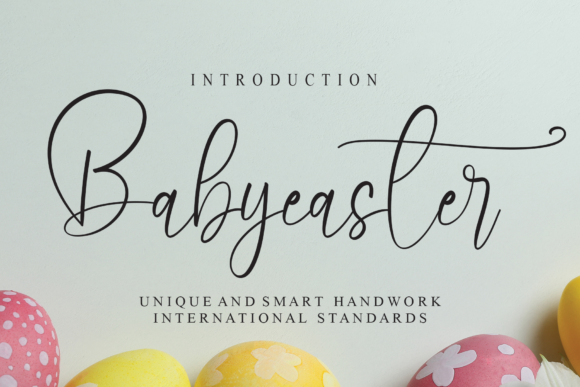
The Perfect Script for Spring: Babyeaster Font
There’s something magical about sitting in a cozy café on a warm spring morning, sipping a cup of coffee and brainstorming new design ideas. The sun is shining, the birds are singing, and the world feels full of possibilities. As you flip through your sketchbook, you’re on the hunt for the perfect font to bring your vision to life. That’s when you stumble upon it – a delicate, elegant script that makes your heart skip a beat.
This is the Babyeaster Font, a beautiful and refined script designed to add a touch of sophistication to your designs. Whether you’re working on a wedding invitation, a birthday card, or a branding project, this font is sure to impress. With its airy lines and gentle curves, Babyeaster Font is the perfect choice for anyone looking to create a fresh and elegant look.
Babyeaster Font Key Features
- Font Style: Handwritten, Casual
- Unique Characteristics: Includes ligatures, swashes, and alternates for creative typography
- Language Support: Multilingual support, including Latin-based languages and some Cyrillic characters
Babyeaster Font Review
Overall, I found the Babyeaster Font to be a unique and charming addition to any design project. It has a whimsical feel that can add a touch of playfulness to your work. Here are some of the things that work well:
- ✨ Whimsical feel: The font has a distinctive, hand-drawn quality that can add a lot of character to your design.
- ✨ Versatility: Babyeaster Font can be used in a variety of contexts, from children’s books to advertisements, and can be easily paired with other fonts to create a unique look.
- ✨ Expressiveness: The font has a wide range of weights and styles, making it easy to convey different emotions and ideas through your design.
- ⚠️ Limited legibility: At smaller font sizes, the Babyeaster Font can be difficult to read, particularly for those with vision impairments.
- ⚠️ Distinctive style may not be for everyone: While the font’s whimsical feel can be a strength, it may not be the right choice for projects that require a more serious or professional tone.
Overall, I would recommend the Babyeaster Font for designers who are looking to add a touch of playfulness and whimsy to their work. While it may have some limitations, it’s a unique and expressive font that can be a great addition to any design project.
Tips for Getting the Most Out of Babyeaster Font
- Use it for whimsical and playful designs, such as children’s books or Easter-themed graphics.
- Pair it with bold and colorful graphics to create a fun and eye-catching design.
Babyeaster Font is commonly used for:
- Children